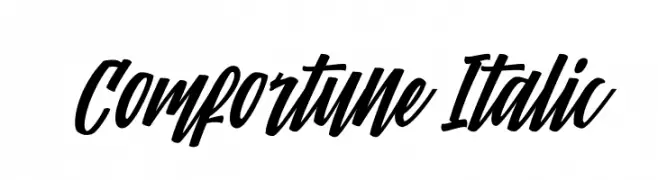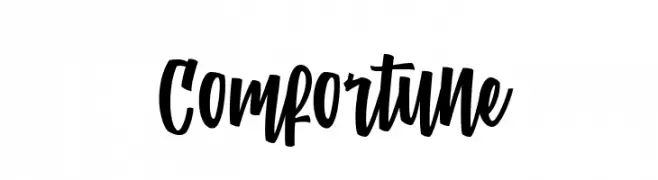
A bold, brush-style font with a playful and energetic handwritten appearance.
A bold, italic script font with a dynamic and hand-drawn style.
A playful, tilted handwritten font with bold, consistent strokes.